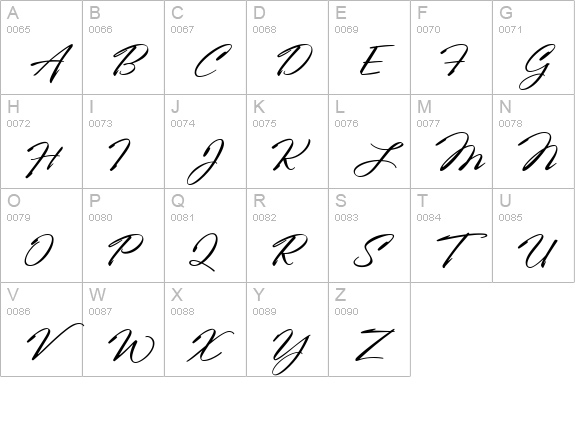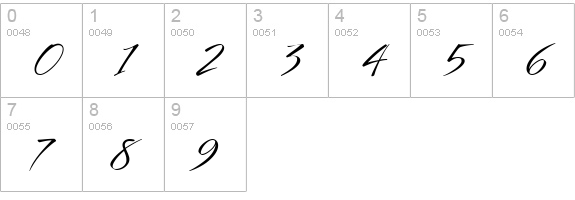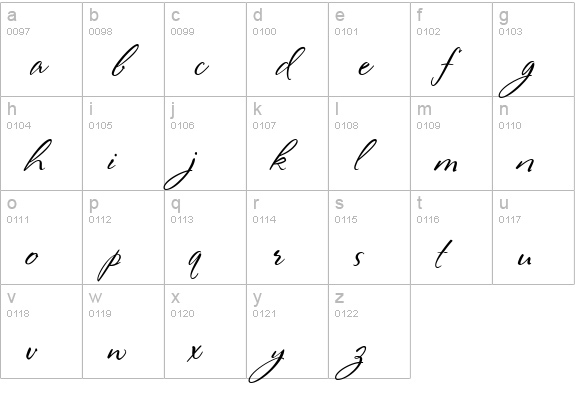
Stephanie Marie JF Font Details
Stephanie Marie JF font is a charming and elegant typeface that exudes sophistication and grace. With its delicate curves and stylish flourishes, this font is perfect for adding a touch of class to any project. Whether you're designing invitations, creating branding materials, or crafting a beautiful logo, Stephanie Marie JF font is sure to make a statement. The best part? This exquisite font is available for free download at FontsMarket.com. Enjoy the luxury of using such a high-quality typeface without any cost involved. Don't miss out on the opportunity to elevate your designs with Stephanie Marie JF font today!